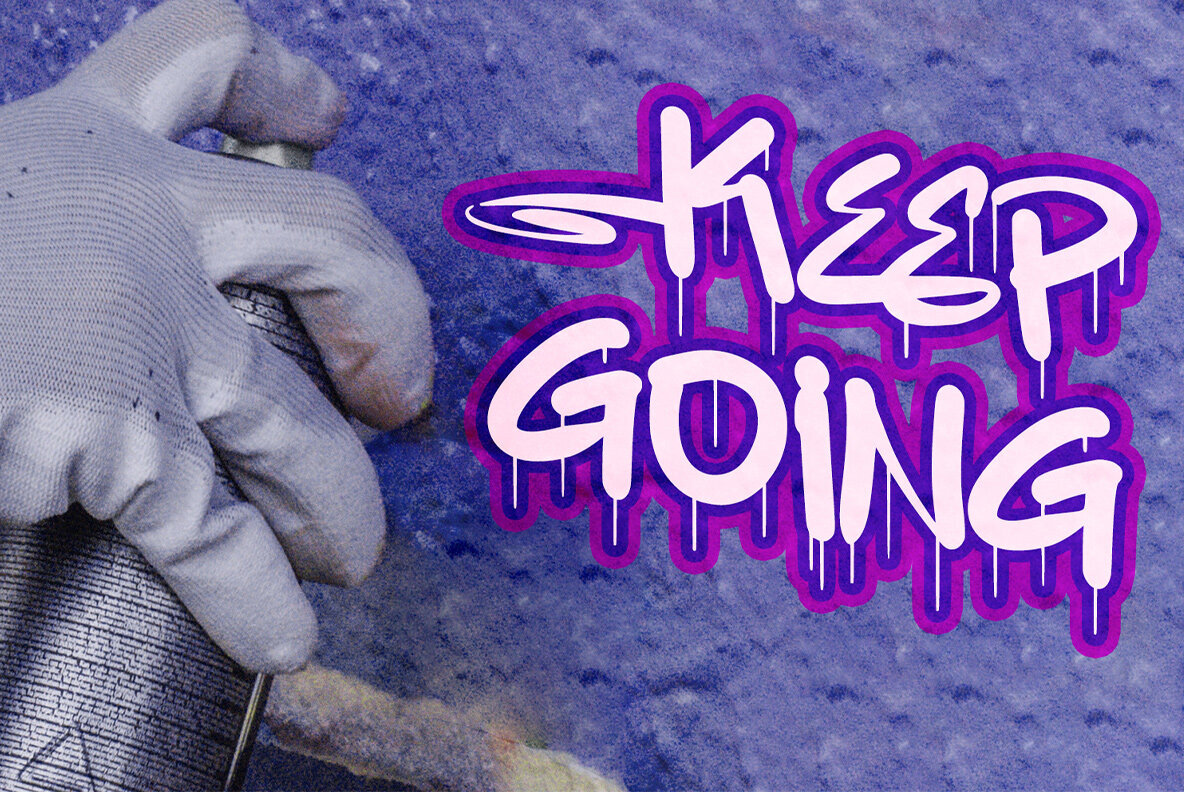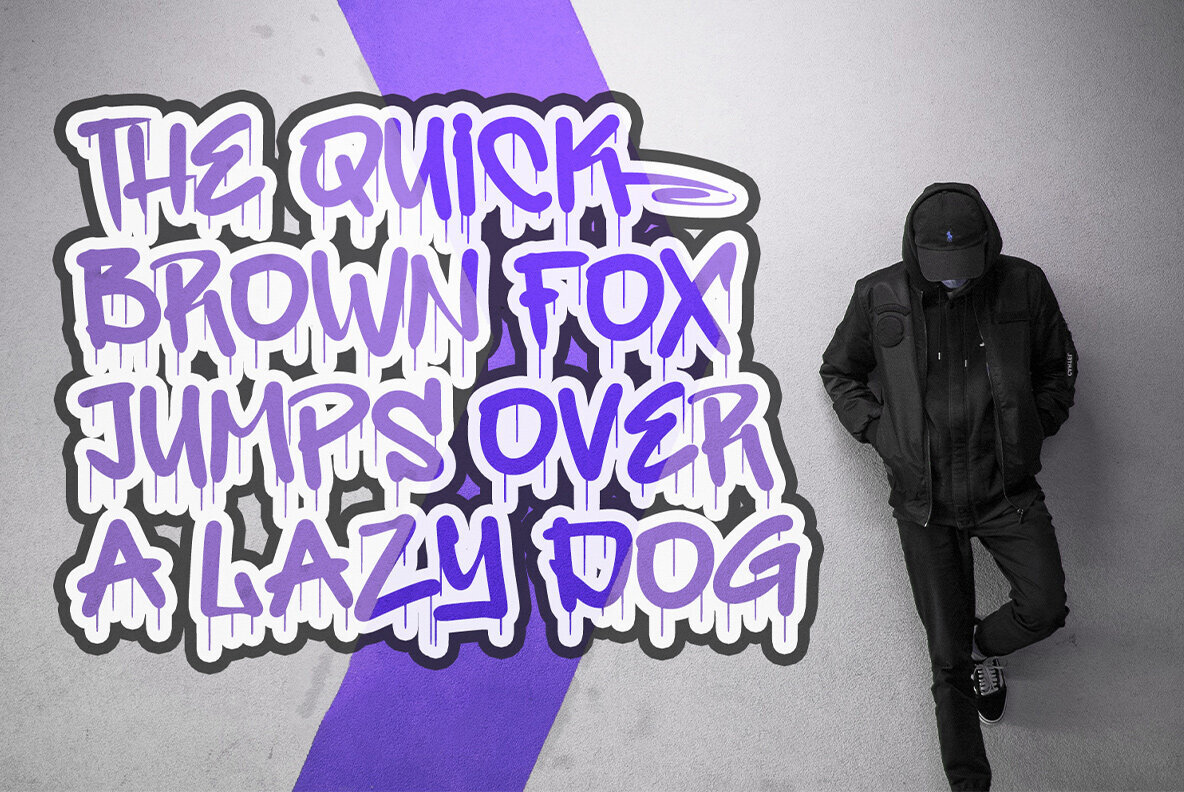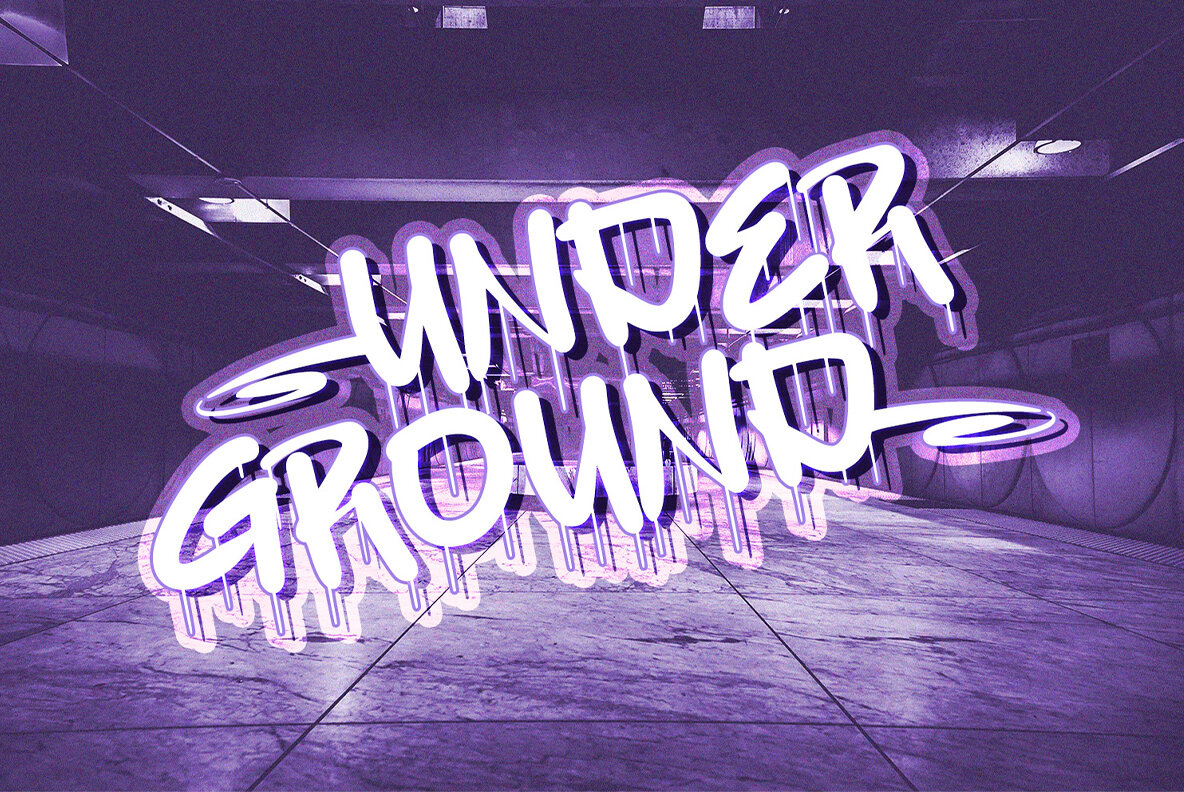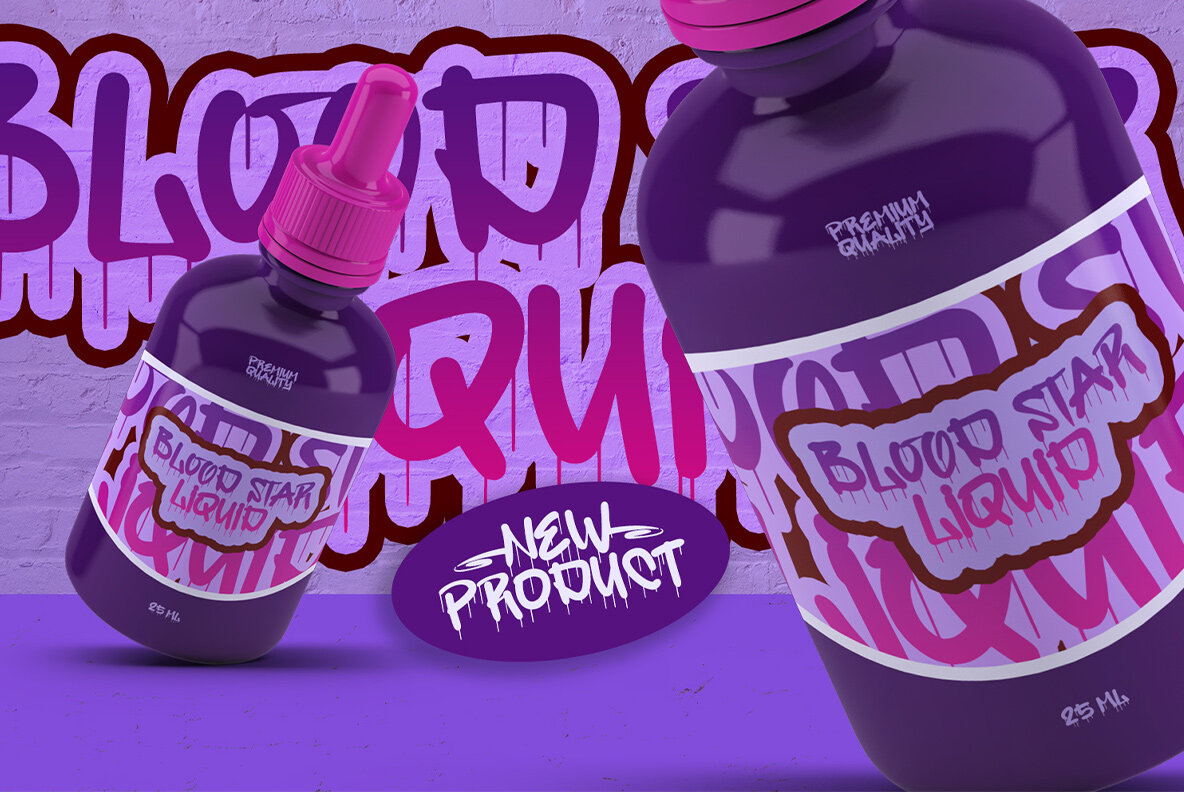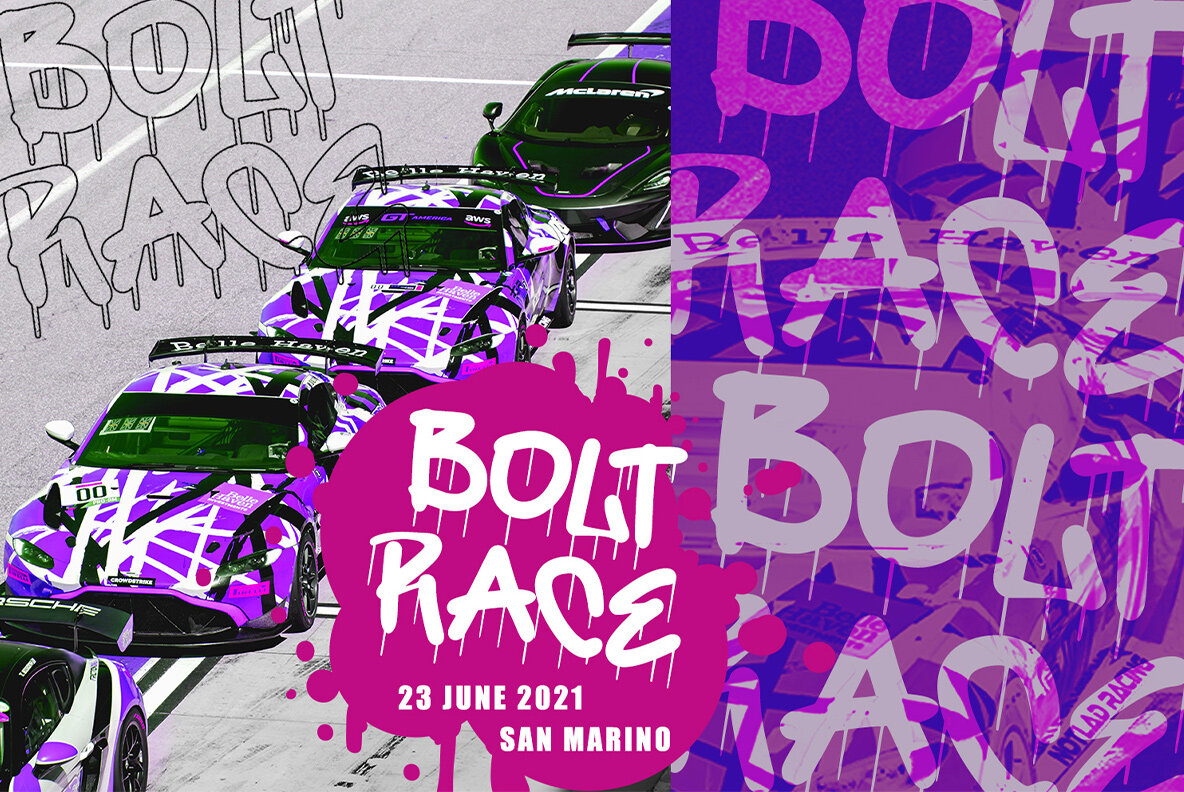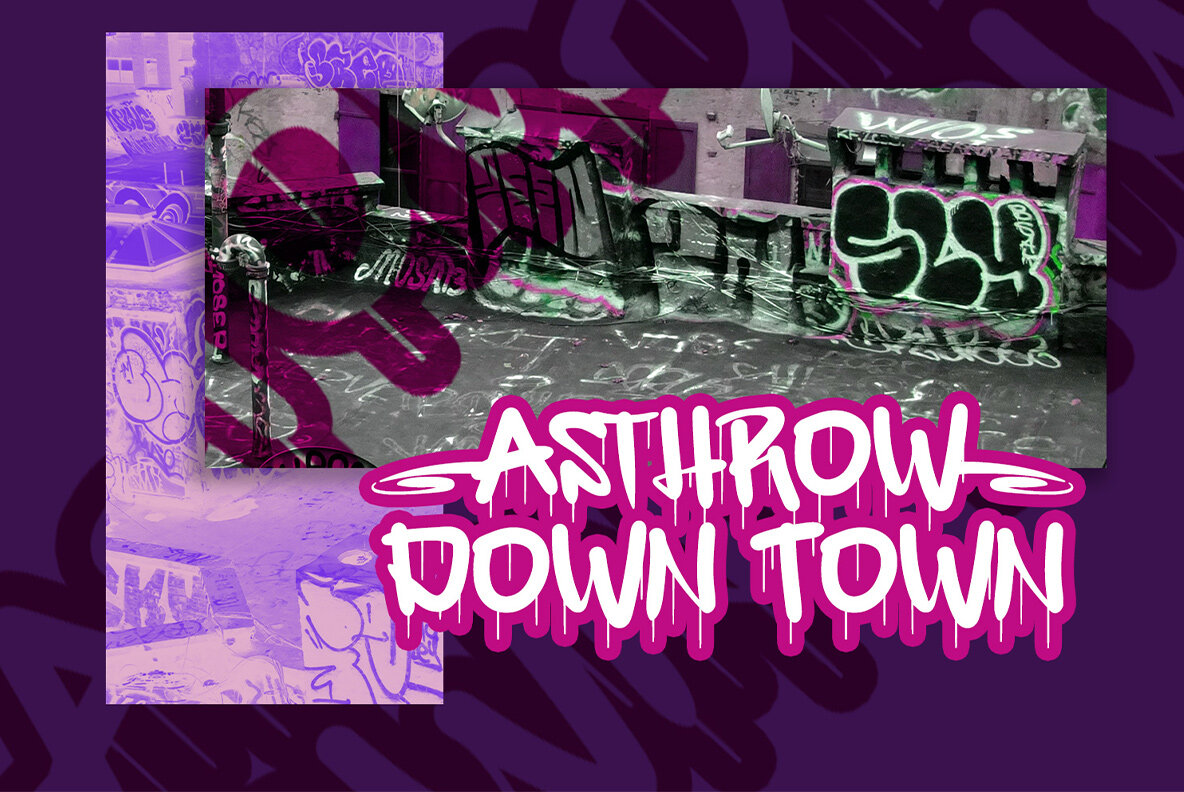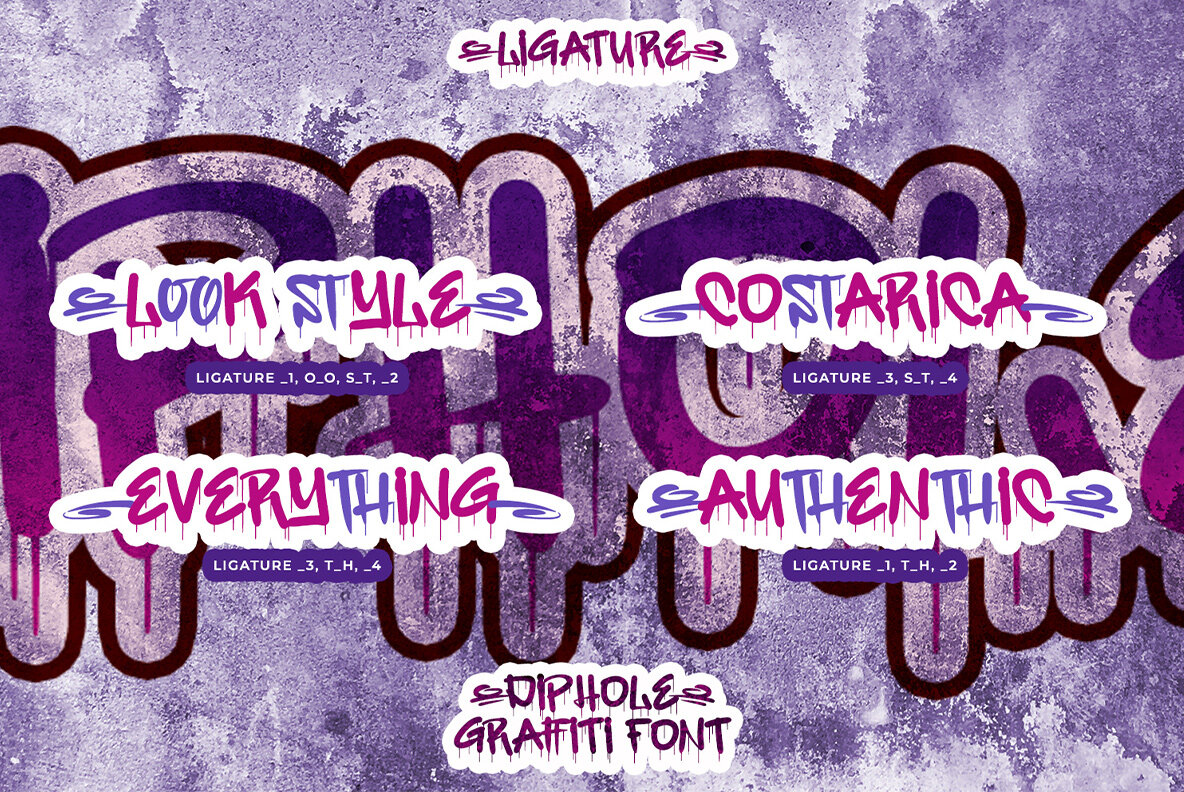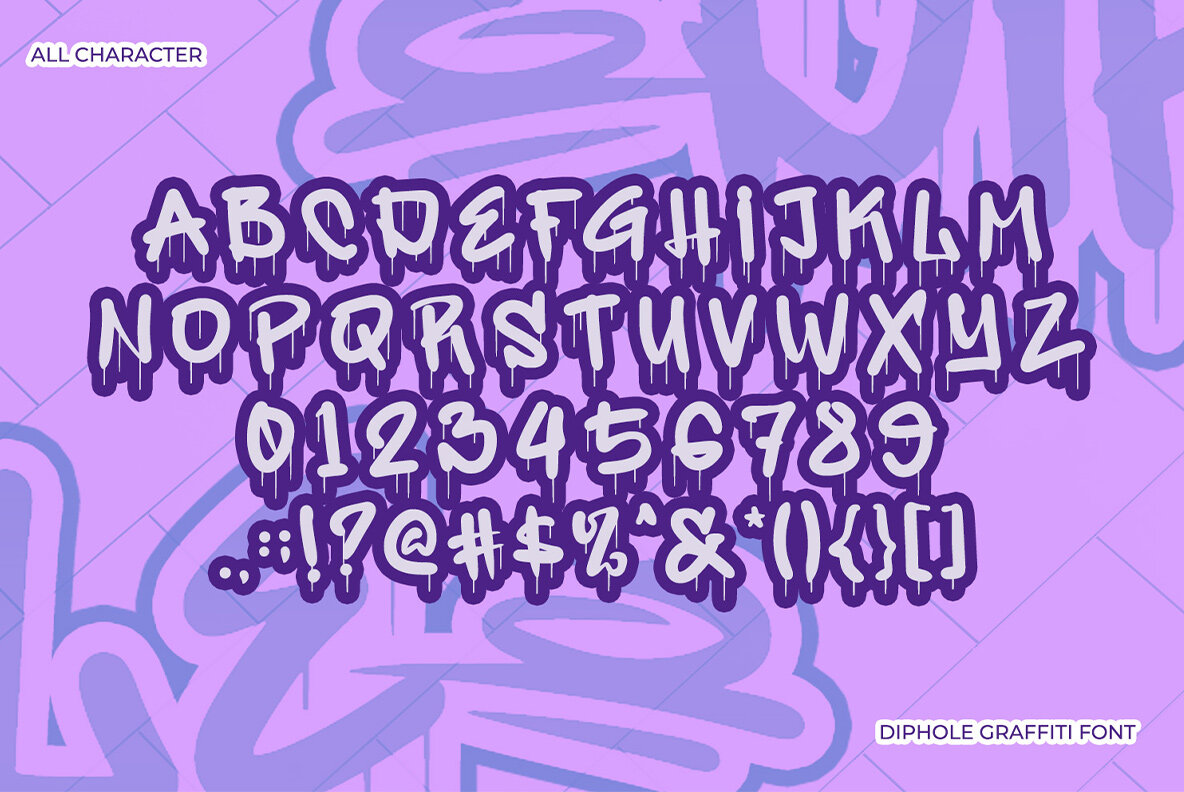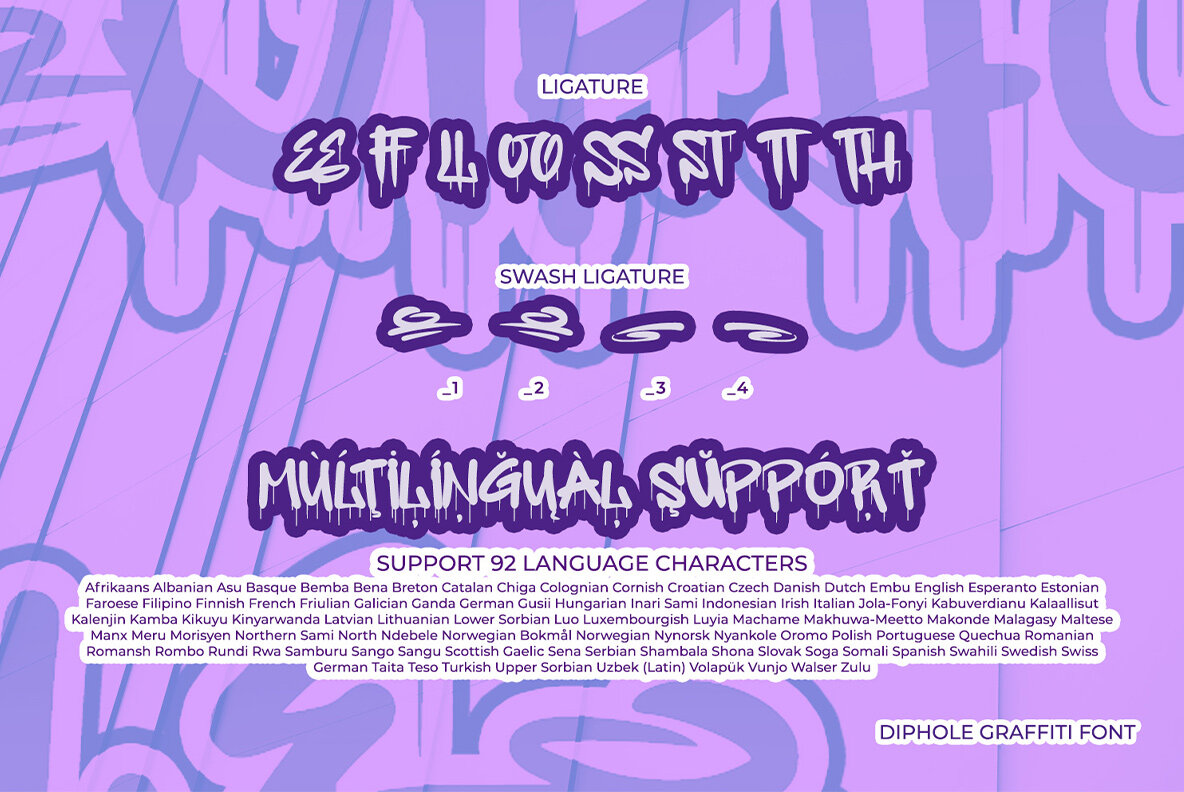
Diphole Font
Diphole
Diphole is a dynamic graffiti-style font that embodies urban edge and youthful vibrancy. With its bold uppercase letters, it injects a lively street vibe into any project. This font is expertly crafted with striking borders, making it perfect for capturing attention and adding flair to creative works. Ideal for crafting eye-catching invitations, t-shirt designs, or any project in need of a playful urban touch.
Packed with useful features, Diphole includes ligatures, swashes, and multilingual support. Its PUA encoding ensures easy access to all glyphs and special characters, while also incorporating numerals and punctuation for comprehensive design versatility. Whether you're working on logos, headings, menus, or social media graphics, this font provides an energetic and modern twist to elevate your creations.